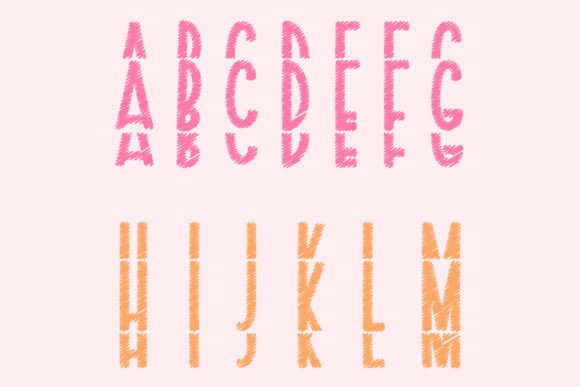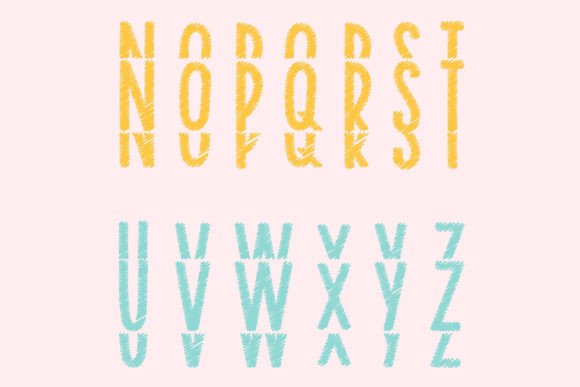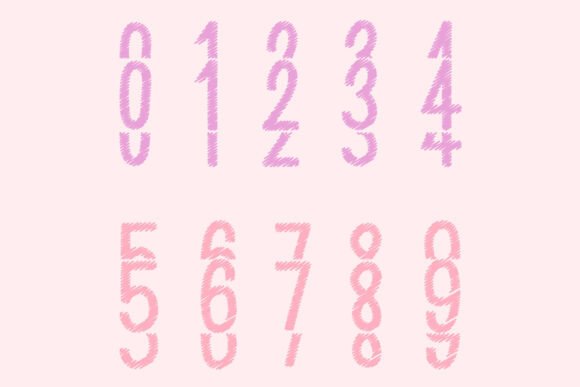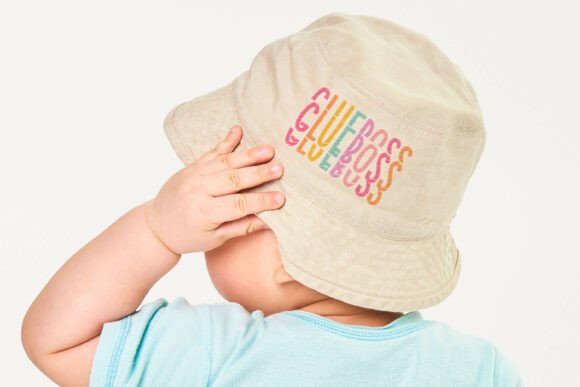
Crayonfriends Stacked Font: Unleash the Playful Magic of Childhood in Your Designs
Are you looking for a font that can bring a touch of childhood magic to your designs? Look no further than the Crayonfriends Stacked Font! This cheerful and colorful font is designed to capture the playful essence of childhood, making it perfect for kid-focused projects. With its hand-colored crayon style and friendly personality, Crayon Friends adds a soft, joyful touch to every design.
The Inspiration Behind Crayon Friends
Crayon Friends is more than just a font – it’s a way to tap into the creativity and imagination of childhood. Each letter is designed to look like it’s been lovingly scribbled by a young artist, with a hand-colored crayon style that’s both playful and charming. The font’s friendly personality makes it perfect for designs that need to appeal to kids, such as preschool posters, birthday invitations, classroom materials, and fun labels.
Key Features of Crayon Friends
- Hand-colored crayon style: Each letter is designed to look like it’s been colored in with crayons, giving your designs a playful and whimsical feel.
- Cheerful and colorful: Crayon Friends is a bright and cheerful font that’s sure to add a pop of color to your designs.
- Perfect for kid-focused projects: Whether you’re designing for preschoolers or older kids, Crayon Friends is the perfect font to bring a touch of childhood magic to your designs.
- Soft and joyful: The font’s friendly personality and playful style make it perfect for designs that need to convey a sense of fun and joy.
Uses for Crayon Friends
Crayon Friends is a versatile font that can be used in a variety of designs, including:
- Preschool posters: Create eye-catching posters for preschool classrooms or events with Crayon Friends.
- Birthday invitations: Add a touch of childhood magic to birthday invitations with this playful font.
- Classroom materials: Use Crayon Friends to create engaging and interactive classroom materials, such as worksheets and activity sheets.
- Fun labels: Add a pop of color and personality to labels for kids’ products or events with Crayon Friends.
Tips for Using Crayon Friends
Here are a few tips for getting the most out of Crayon Friends:
- Experiment with colors: Crayon Friends is a colorful font, so don’t be afraid to experiment with different color combinations to find the perfect look for your design.
- Mix and match: Try pairing Crayon Friends with other fonts to create a unique and interesting look.
- Keep it playful: Crayon Friends is a playful font, so don’t be afraid to have fun with it! Use it to create designs that are whimsical and engaging.
Crayonfriends Stacked Font is a unique and playful font that’s perfect for designers and crafters who want to bring a touch of childhood magic to their designs. With its hand-colored crayon style and friendly personality, Crayon Friends is sure to add a soft, joyful touch to every design. Whether you’re designing for kids or just want to add a pop of color and personality to your designs, Crayon Friends is the perfect font for you.